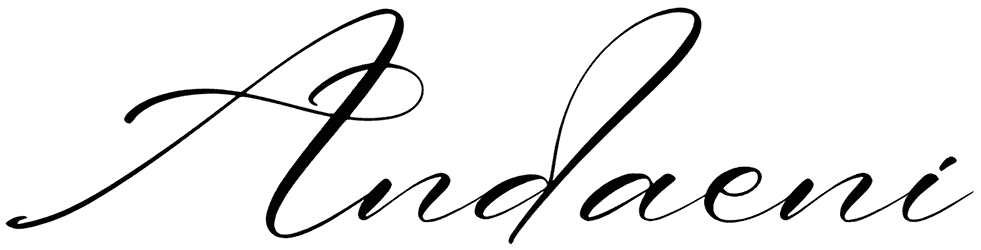
Andaeni Font
With her subtle and sophisticated style, Andaeni font transforms even the most mundane words into artwork, leaving a lasting impression on anyone who hears them. This calligraphy font is similar to a craft that requires patience and accuracy, and can keep the audience busy for a while.
In a world where everything seems to move at breakneck speed, this certificate font reminds the viewer to slow down and take a moment to appreciate a wedding card, greeting card, invitation, or banner ad.